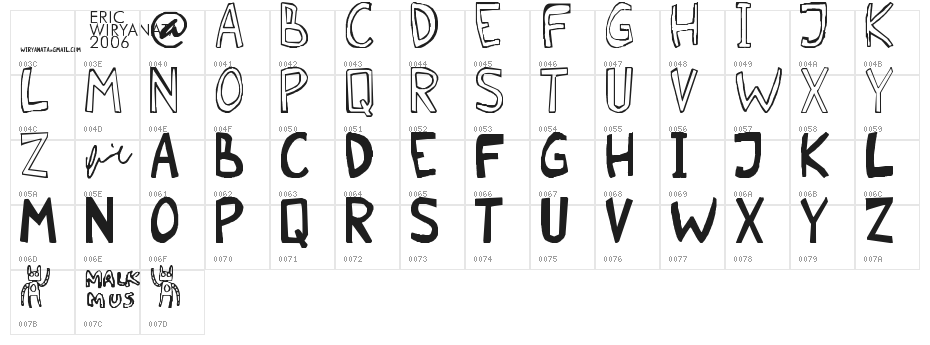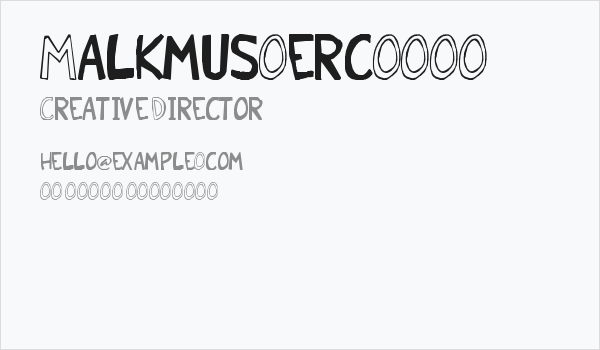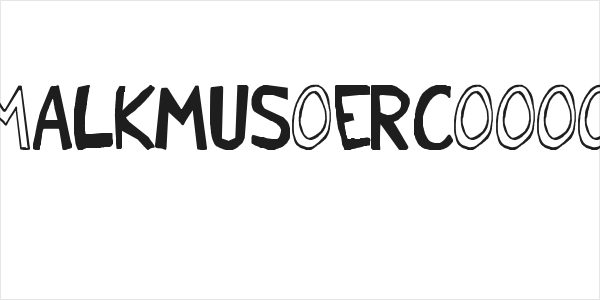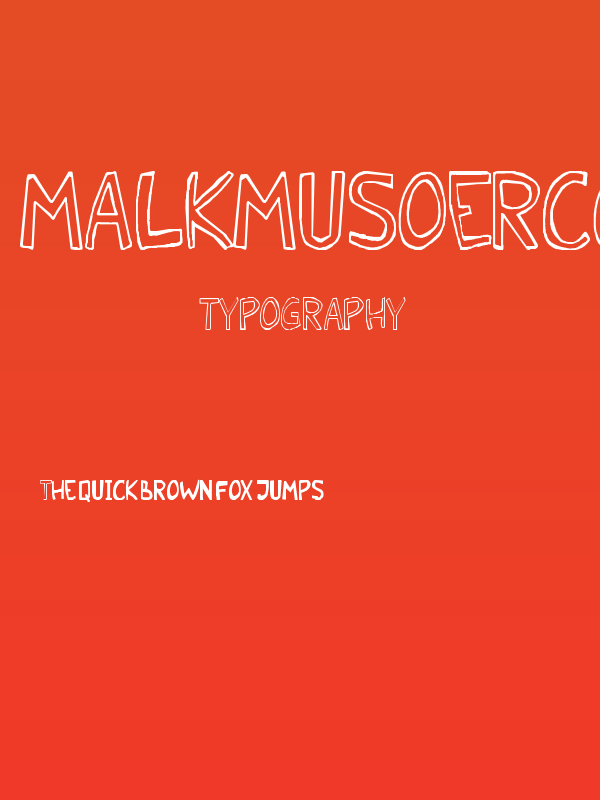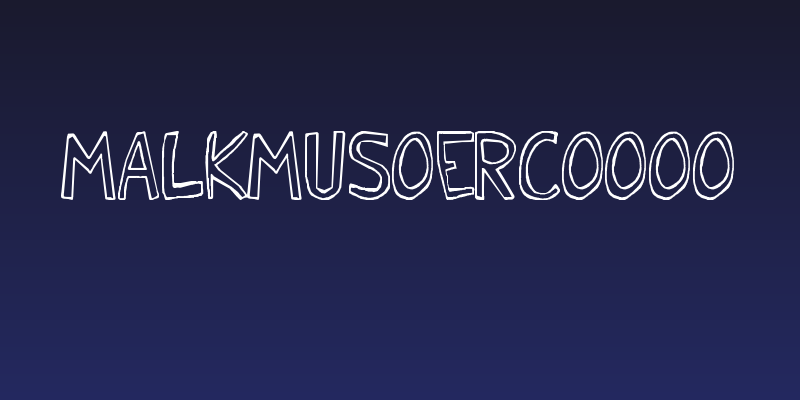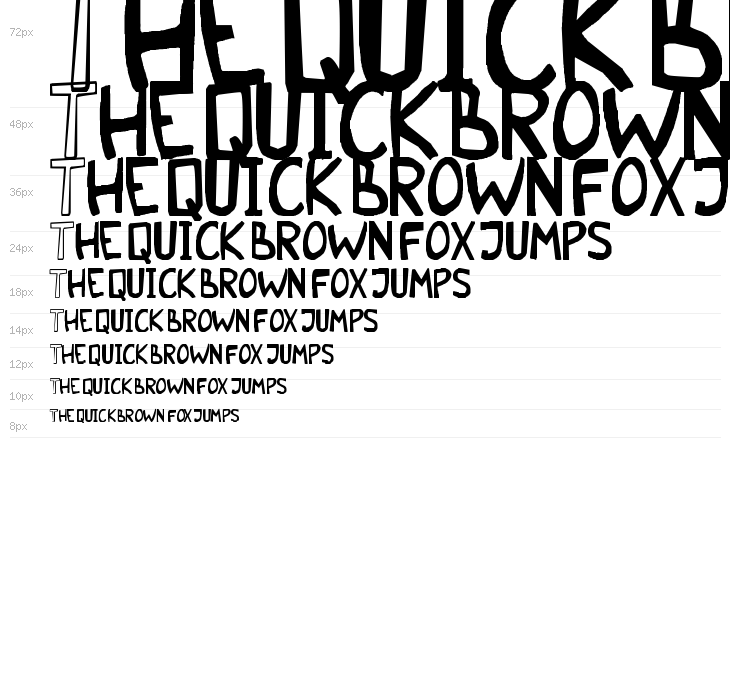
Malkmus_erc_001 Font
Malkmus_erc_001 Description
This font features a playful and hand-drawn style, characterized by its irregular and slightly wobbly lines, giving it a casual and informal appearance. The uppercase letters are bold and prominent, while the lowercase letters maintain the same quirky, hand-crafted look. The numbers and special characters follow the same design ethos, ensuring consistency throughout. The font's unique style makes it stand out, with each character appearing as if it was drawn with a marker, providing a sense of creativity and spontaneity.
| Proposed Projects | Ideal for children's books, comic strips, playful branding, and creative posters. |